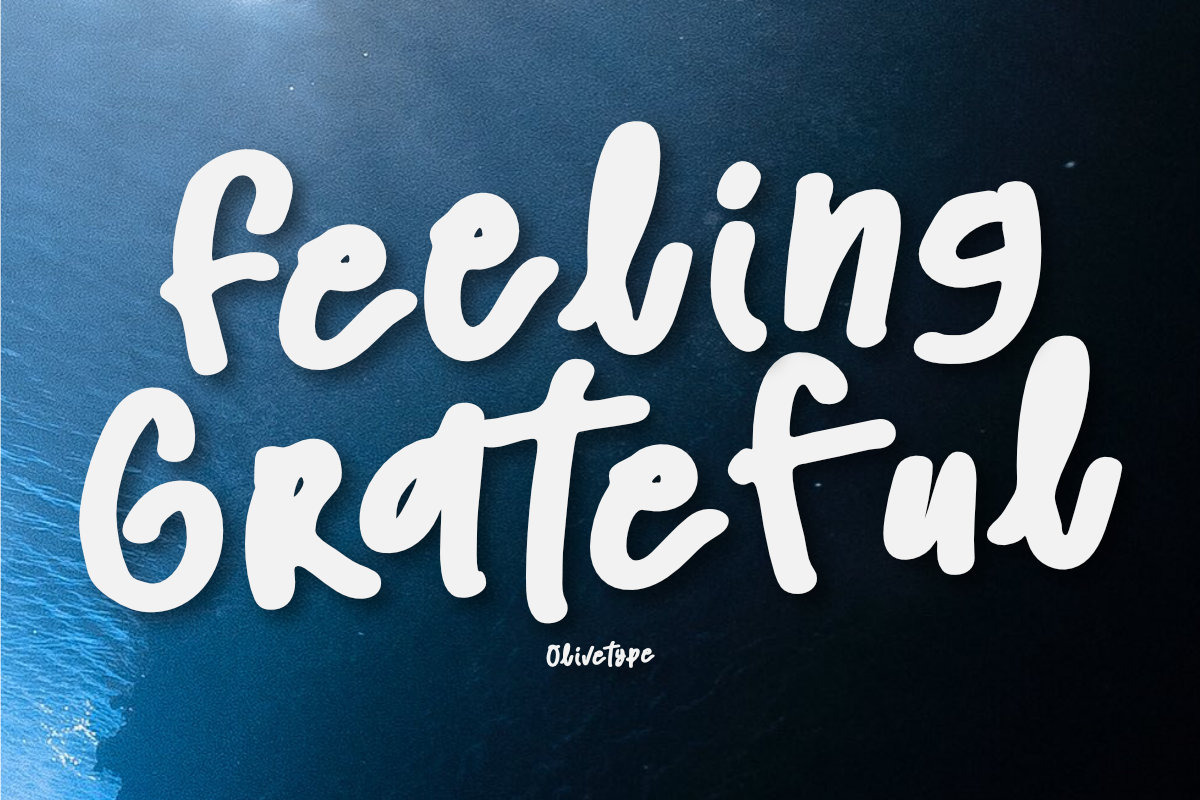
Feeling Grateful - Playful Font
Feeling Grateful is a fun and playful display font. It contains 210 glyphs. Supporting more than 66 languages, which include: Afrikaans Albanian Catalan Danish Dutch English Estonian Finnish French German Italian Norwegian Portuguese Spanish Swedish Zulu, and more.
- Standard Latin A-Z & a-z.
- Numbers, symbols, punctuations, and ligatures
- Multilingual Support.
- Accented Characters : ÀÁÂÃÄÅÆÇÈÉÊËÌÍÎÏÑÒÓÔÕÖØŒŠÙÚÛÜŸÝŽàáâãäåæçèéêëìíîïñòóôõöøœšùúûüýÿžß